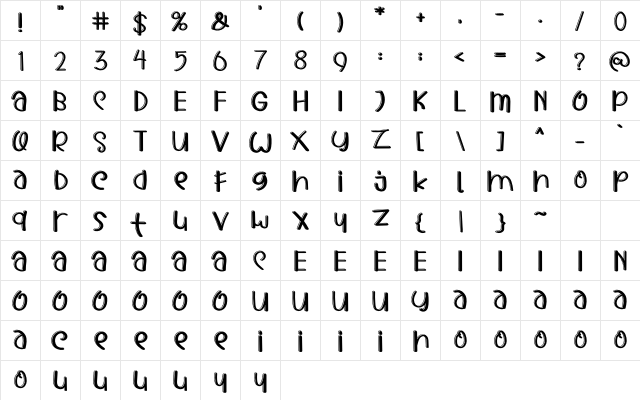
ROCK SNAKE Regular
Design Context for ROCK SNAKE Typeface
ROCK SNAKE is a composed and adaptable typeface that performs quietly and consistently across a wide range of design contexts.